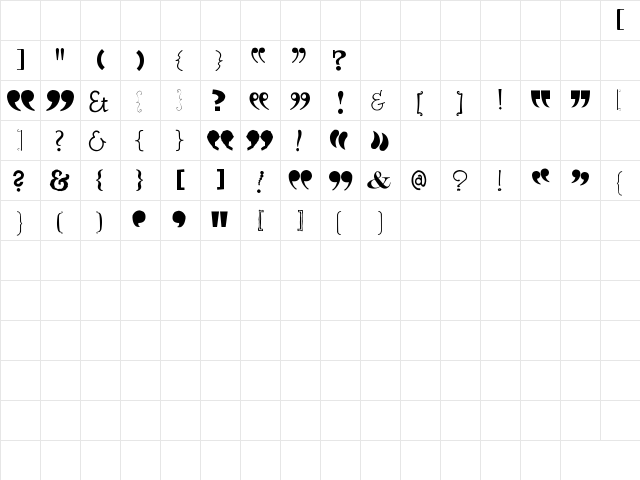
2Peas Journaling Dingbats 2Peas Journaling Dingbats Font Preview
2Peas Journaling Dingbats 2Peas Journaling Dingbats
2Peas Journaling Dingbats 2Peas Journaling Dingbats Font Details
| Style | 2Peas Journaling Dingbats |
| Foundry | High-Logic |
| Designer | High-Logic - Erwin Denissen 1999 |
Design Context for 2Peas Journaling Dingbats Typeface
2Peas Journaling Dingbats is a composed and adaptable typeface that performs quietly and consistently across a wide range of design contexts.